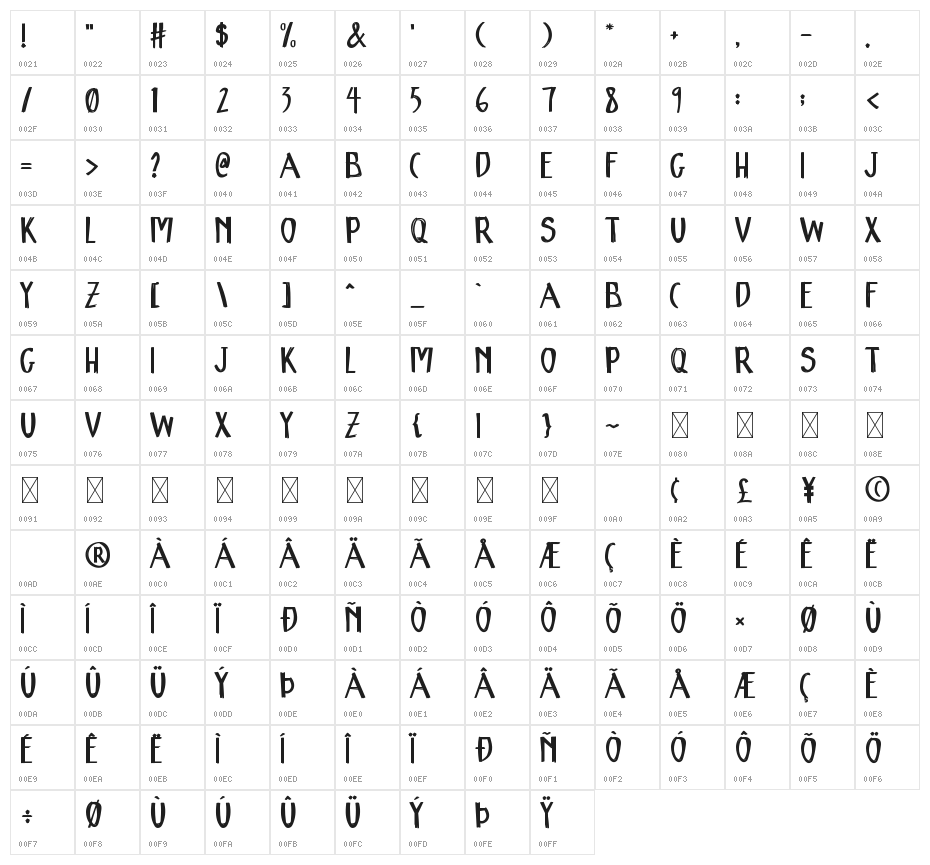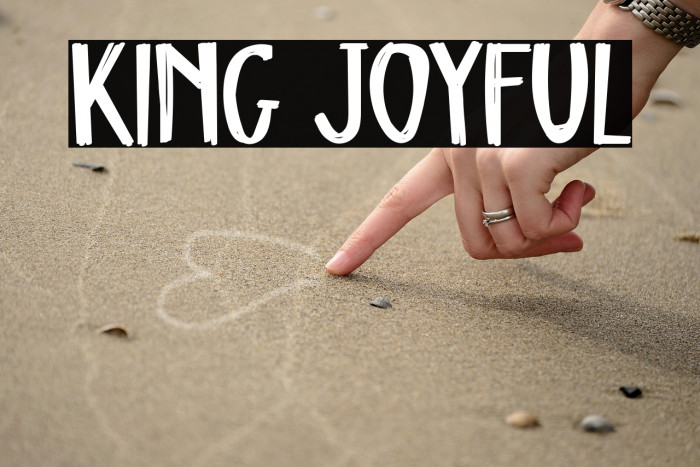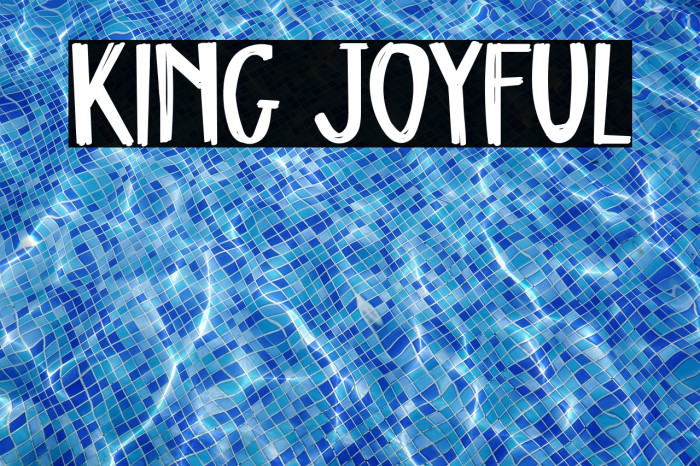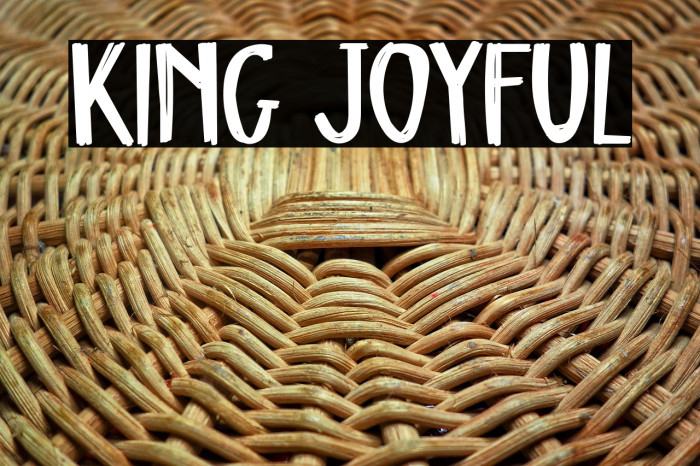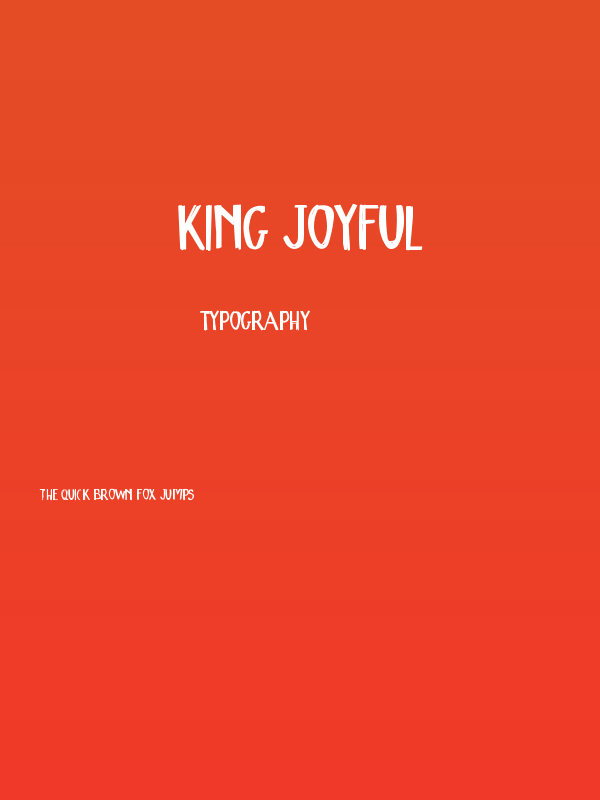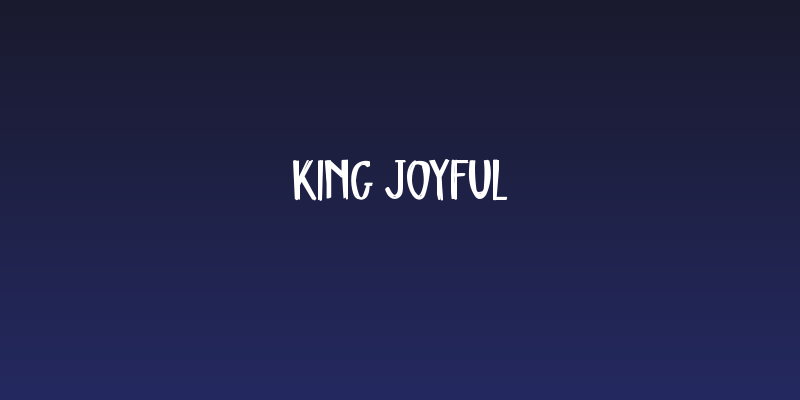
King Joyful Font
King Joyful Description
This font features a playful and dynamic handwritten style, characterized by its bold and slightly irregular strokes. The letters have a casual, energetic feel, with varying line thickness that adds to its lively appearance. The uppercase and lowercase letters maintain a consistent style, while the numbers and special characters complement the overall aesthetic. The font's unique personality makes it stand out, offering a sense of fun and creativity.
| Proposed Projects | Ideal for creative projects such as greeting cards, posters, children's books, and playful branding. |